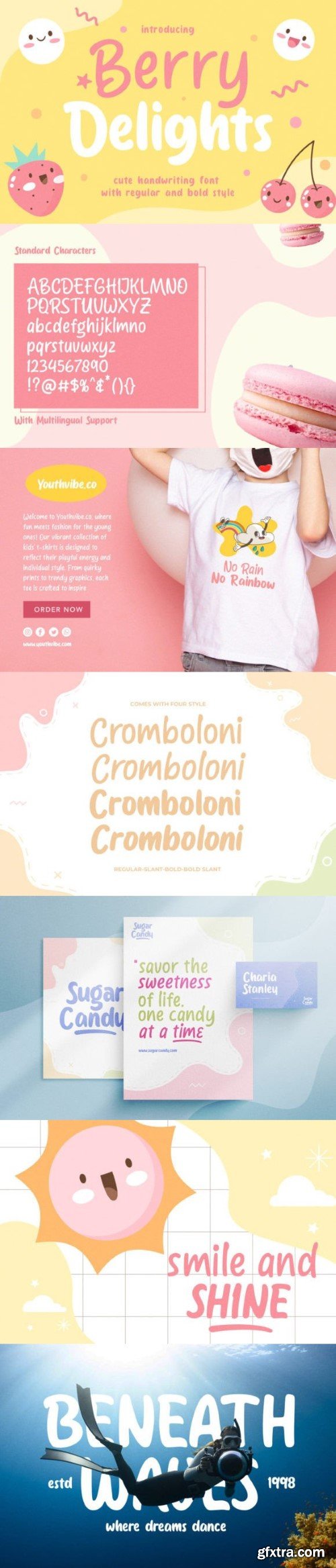
Berry Delight 字体
Berry Delight is a cute hand writing with 2 styles, regular and bold. This font is perfectly made to be applied especially in logo, and the other various formal forms such as invitations, labels, logos, magazines, books, greeting / wedding cards, packaging, fashion, make up, stationery, novels, labels or any type of advertising purpose.